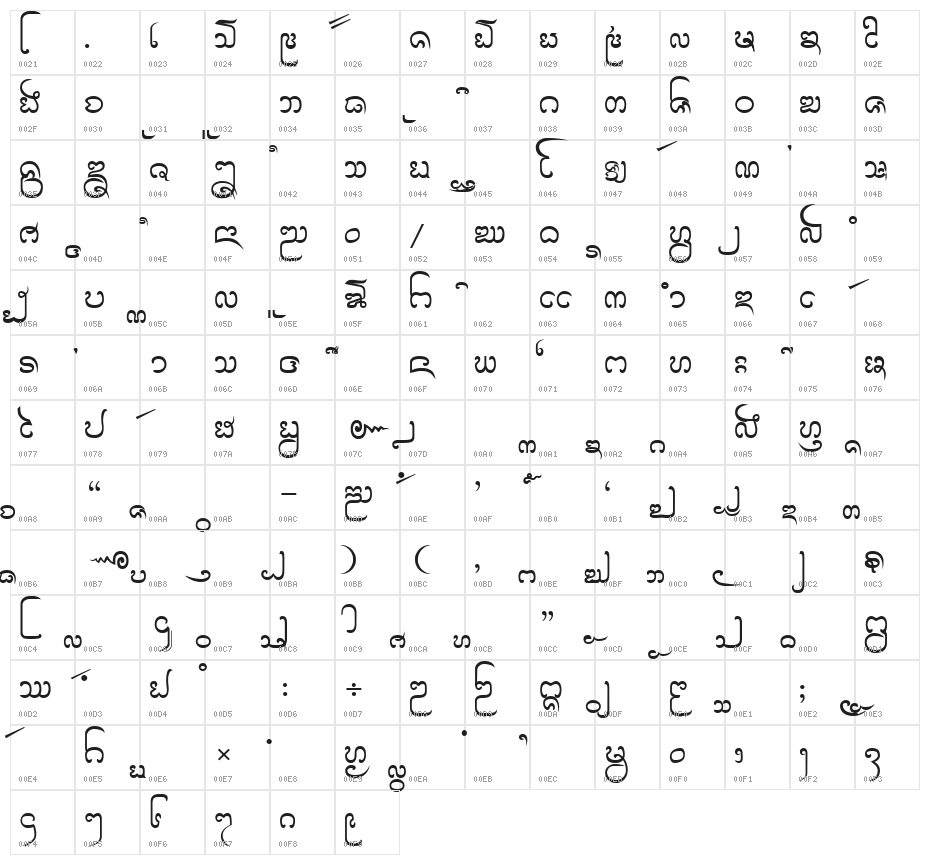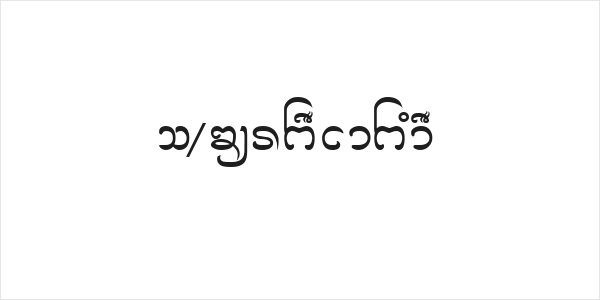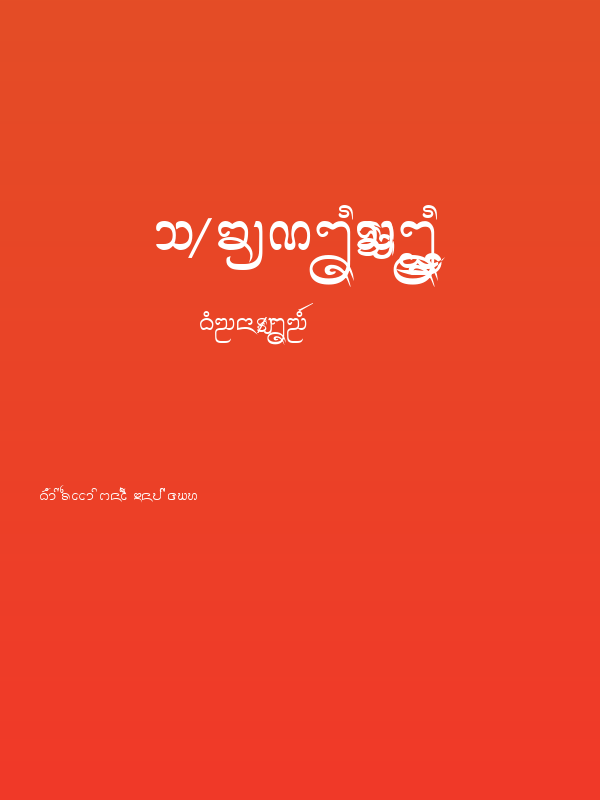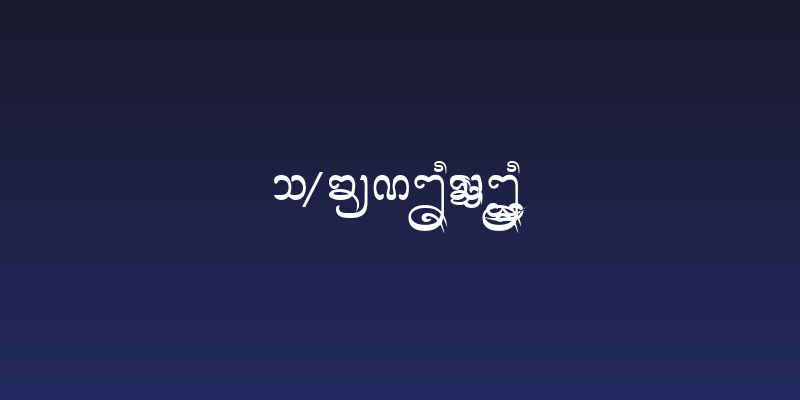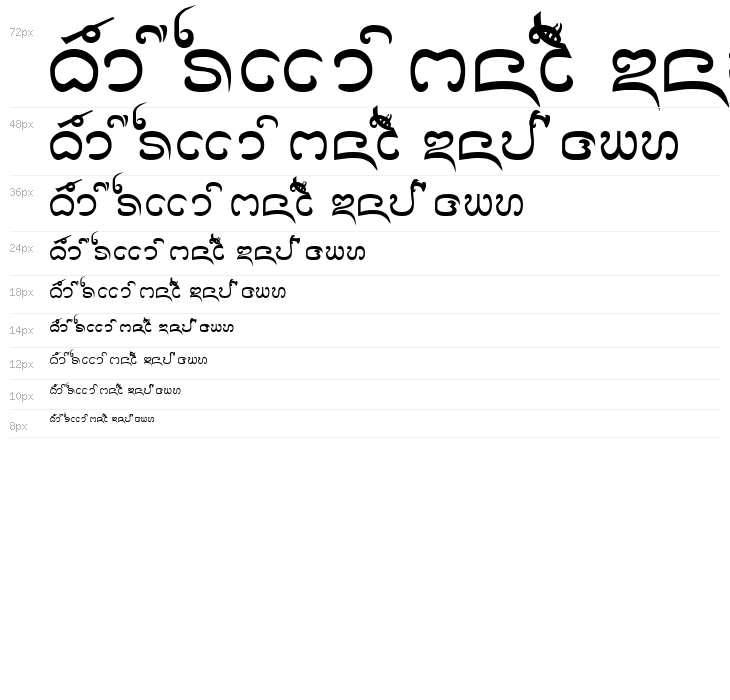
CR-Wiangkaen Font
CR-Wiangkaen Description
This font features a unique and intricate design, characterized by its ornate and decorative elements. The script is highly stylized, with elaborate curves and flourishes that give it a distinct and artistic appearance. The characters are bold and have a strong presence, making them suitable for decorative purposes. The font's style is reminiscent of traditional calligraphy, with a modern twist that adds to its visual appeal. It is well-suited for projects that require a touch of elegance and sophistication, such as invitations, posters, and branding materials. The overall design is both eye-catching and memorable, making it a great choice for creative projects.
| Proposed Projects | Ideal for invitations, posters, branding, and any project requiring an elegant touch. |